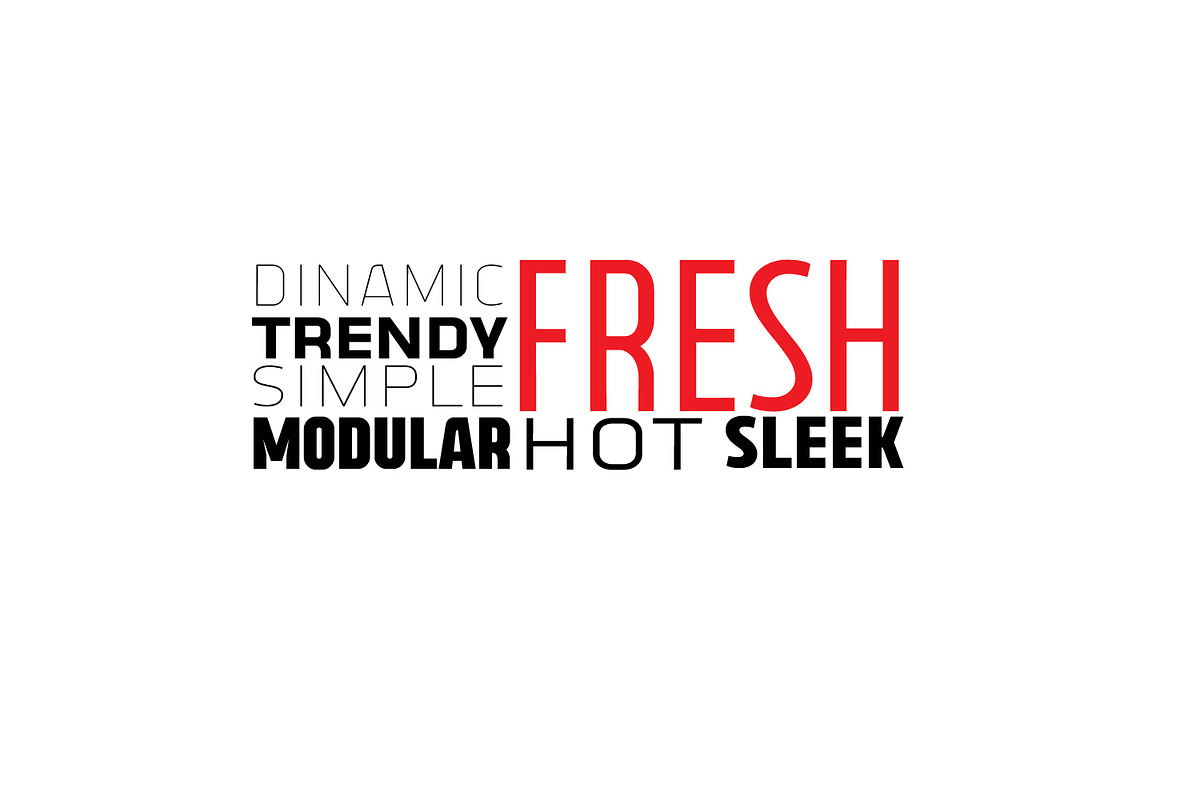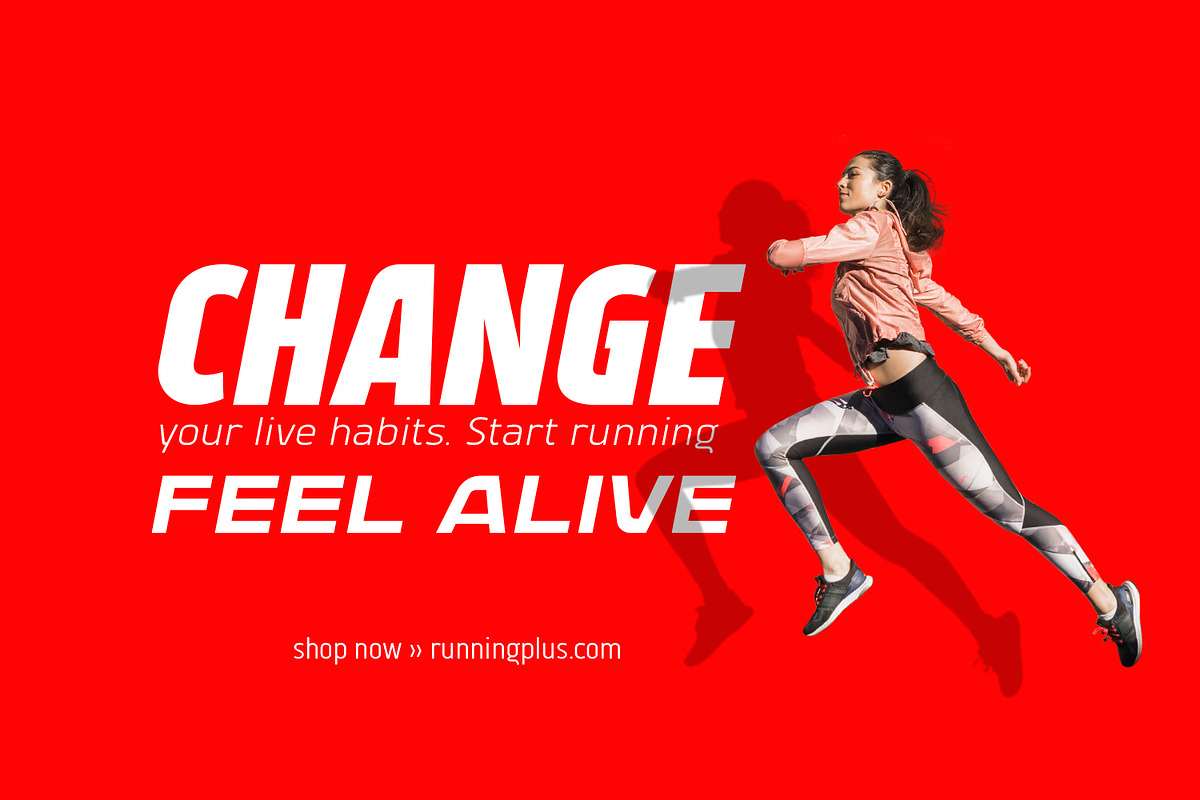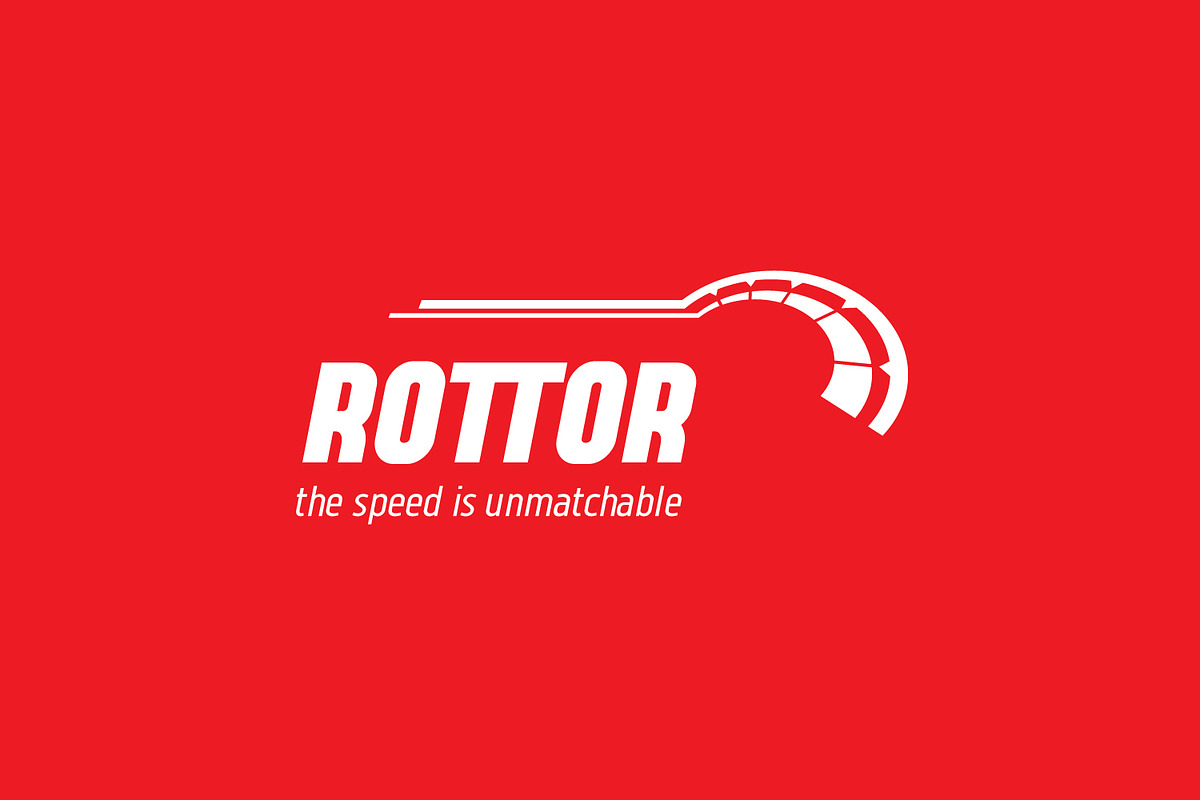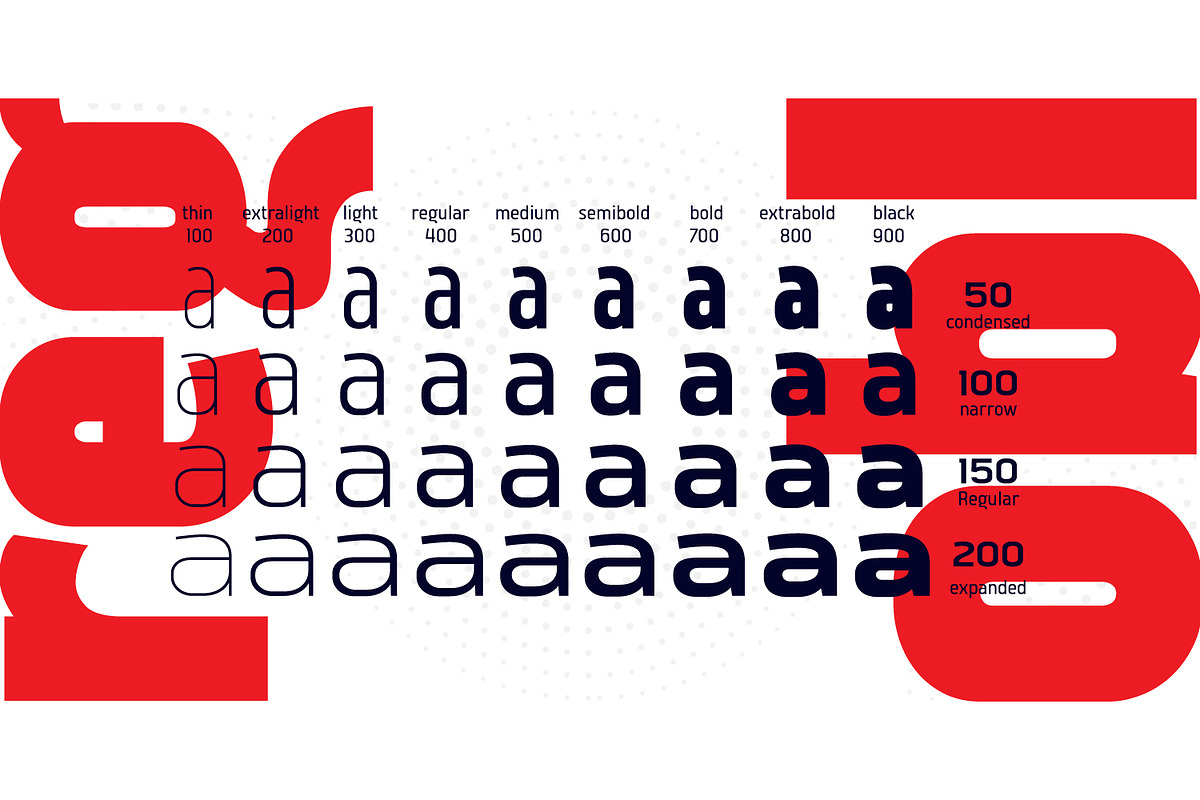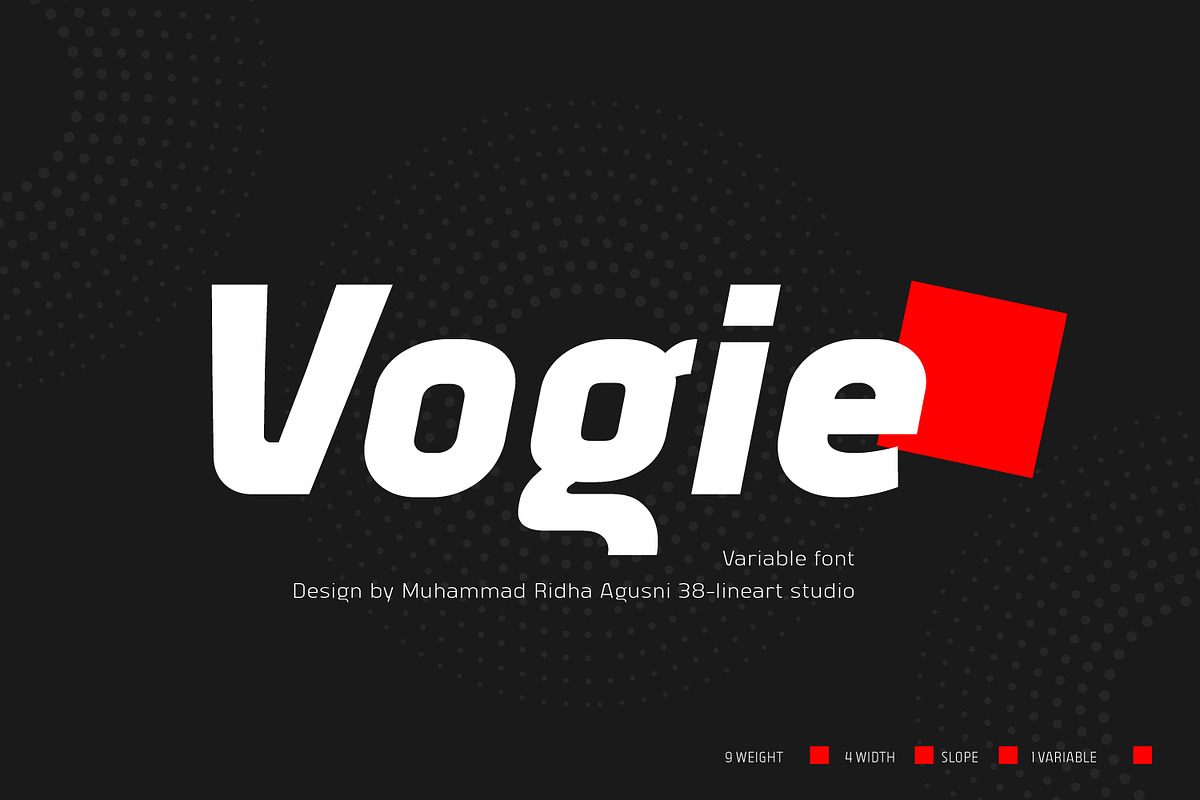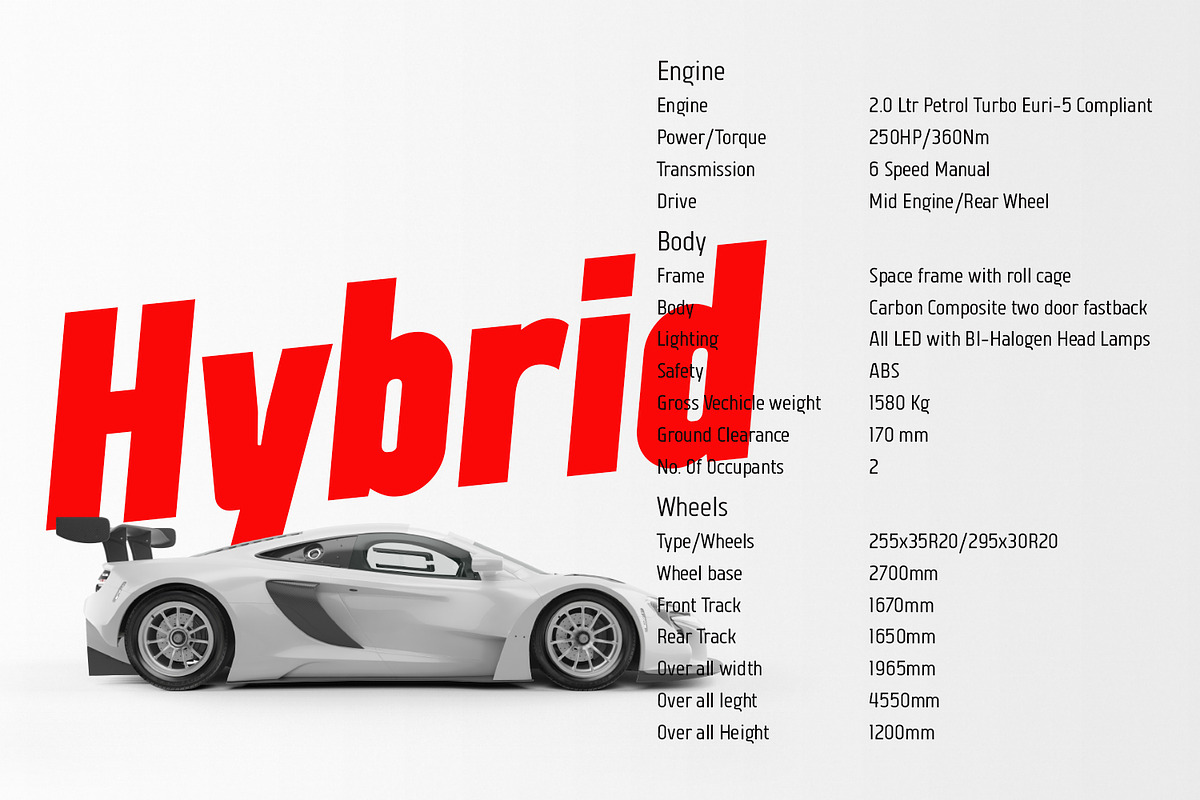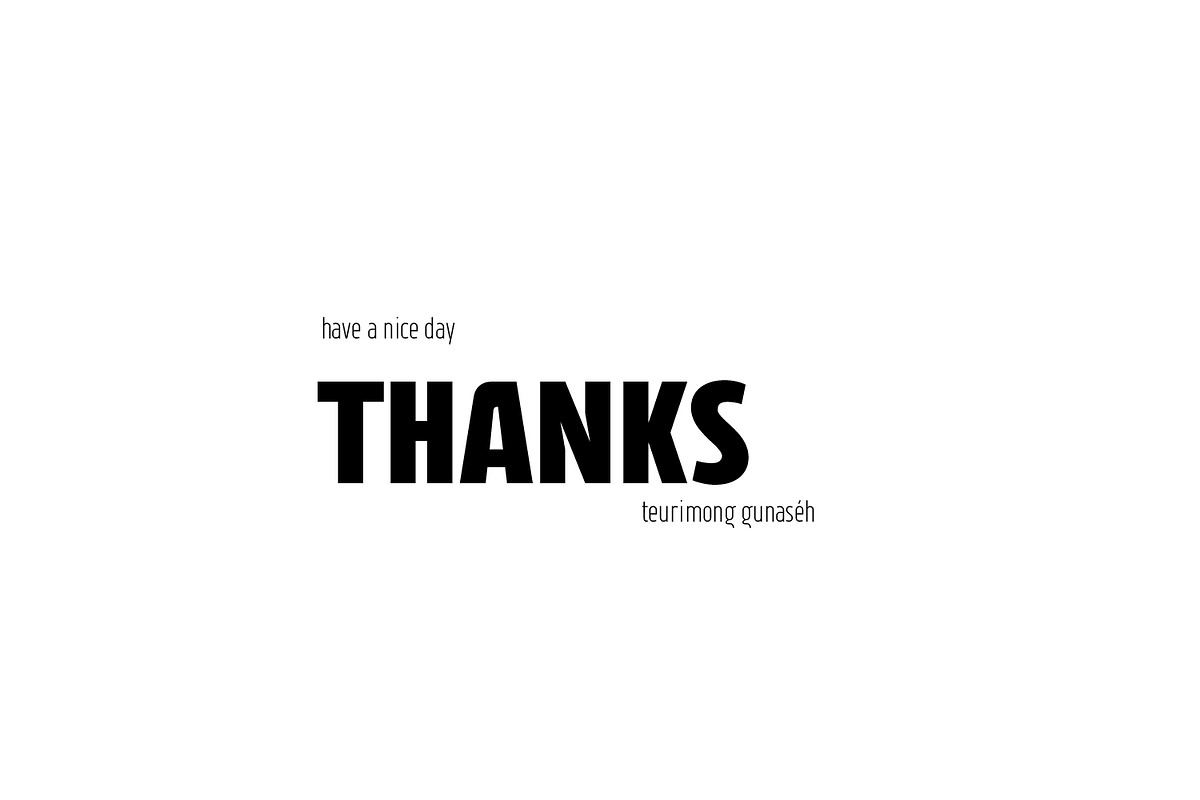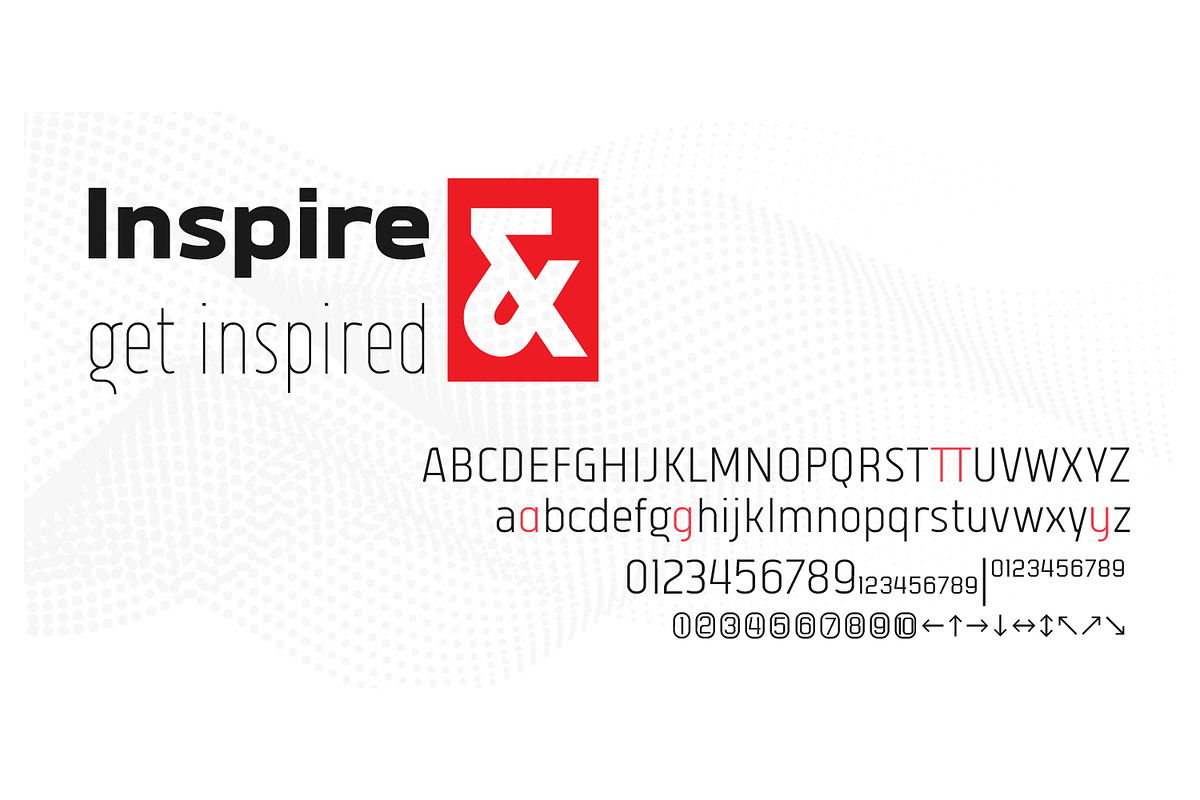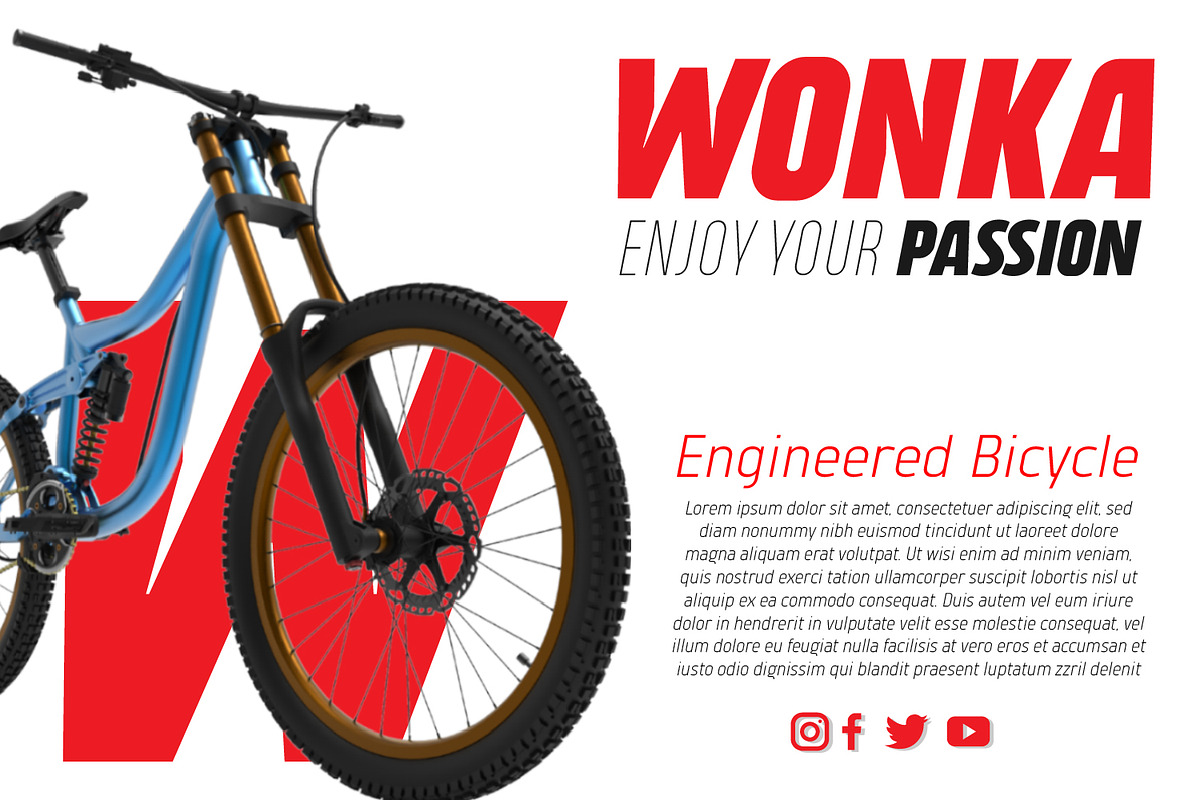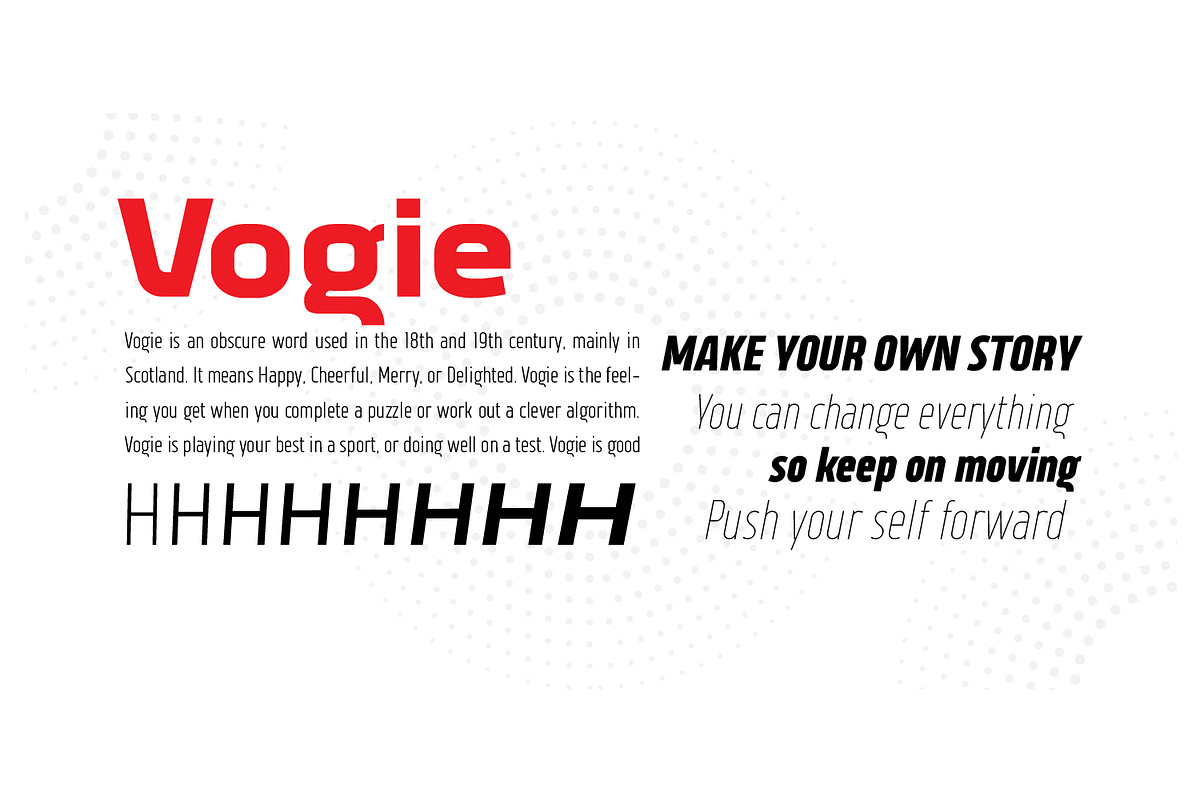
Vogie - Variable San Serif Family
Vogie is a sporty and modern sans serif font, comes in 4 widths, 9 weights and is available in regular and oblique. 62 fonts encapsulated in one variable font makes "vogie" more modern and easy to use.